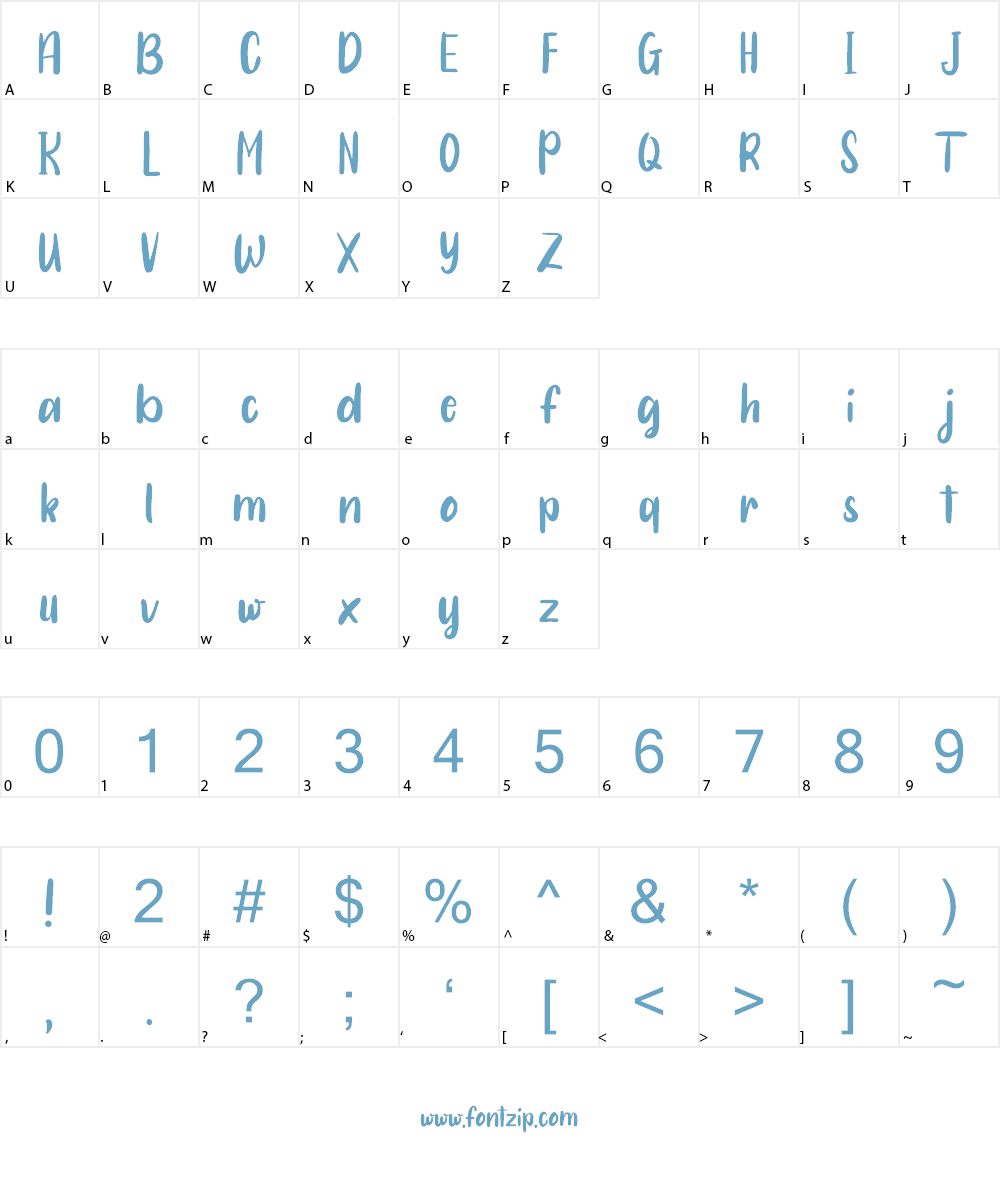
Introducing, Alenka Handlettering Font. An awesome typeface was inspired by modern handlettering calligraphy. You can create modern typography art for sale on totes, mugs, phone case, and more. Create eye catching logos, adorable invitations, and social media promo images and shareable quotes.